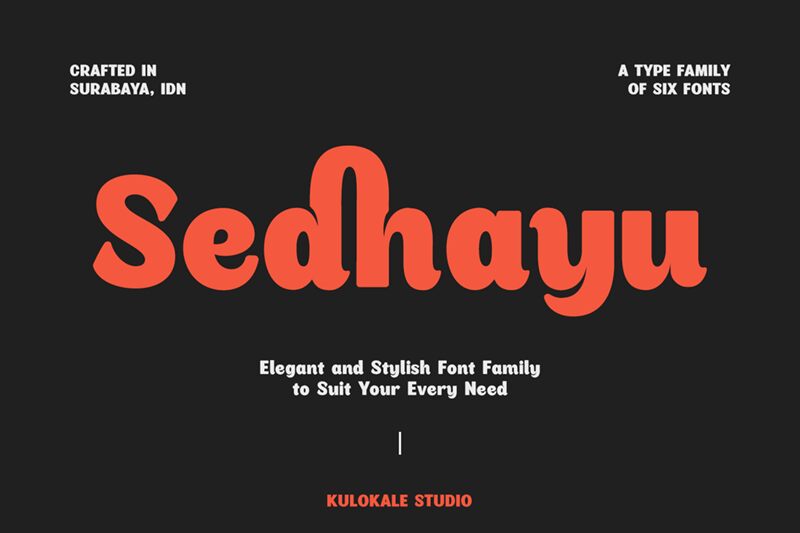
Sedhayu
Sedhayu is a bold sans serif font designed by M Arif Dwi Prasetyo and Eko Nurcahyo. Its clean and modern look makes it perfect for branding, packaging, logos, and headlines. With its bold weight, Sedhayu creates a strong impact that will catch your audience's attention. This font is versatile and suitable for various projects such as website design, social media graphics, posters, and product labels. Sedhayu adds personality to any project with its unique design that blends contemporary style with classic elegance. Make your designs stand out with the Sedhayu bold sans serif font!
Kulokale Studio